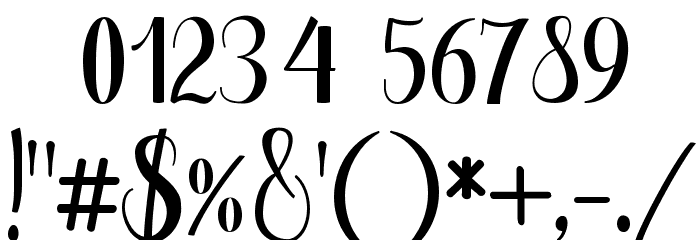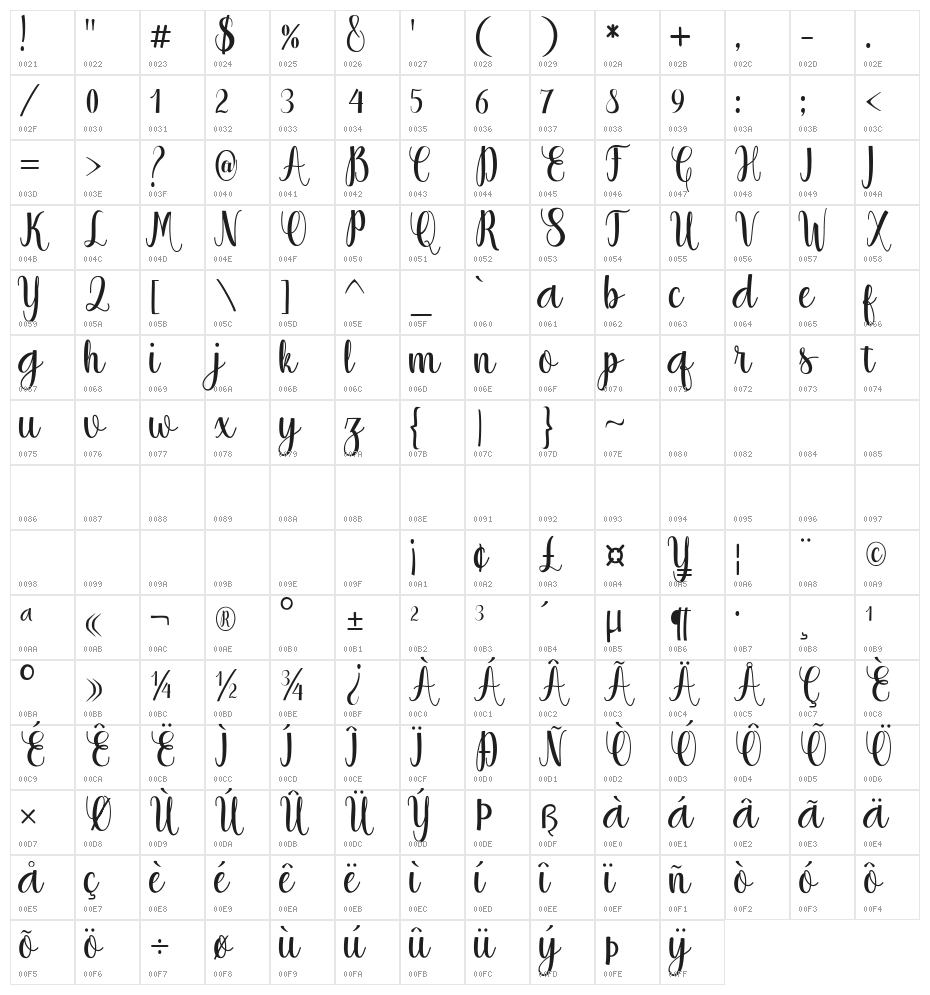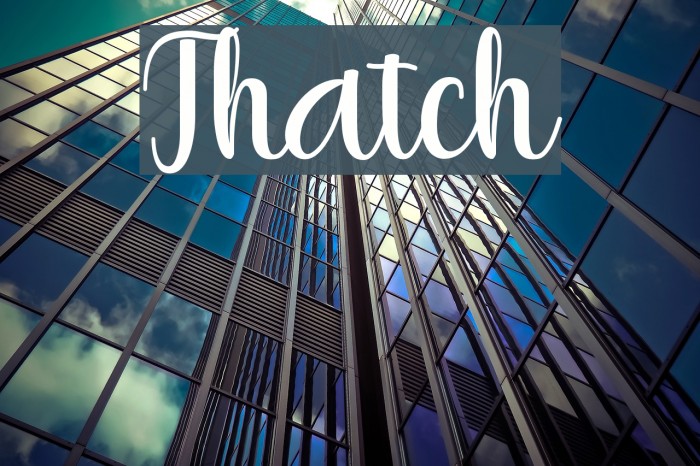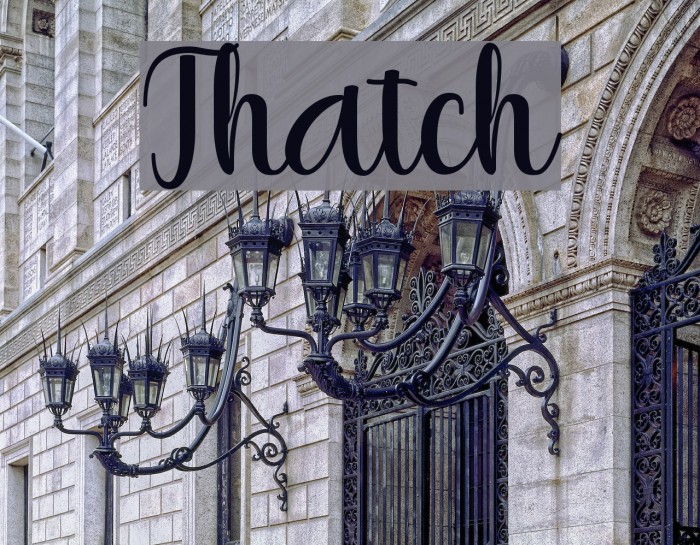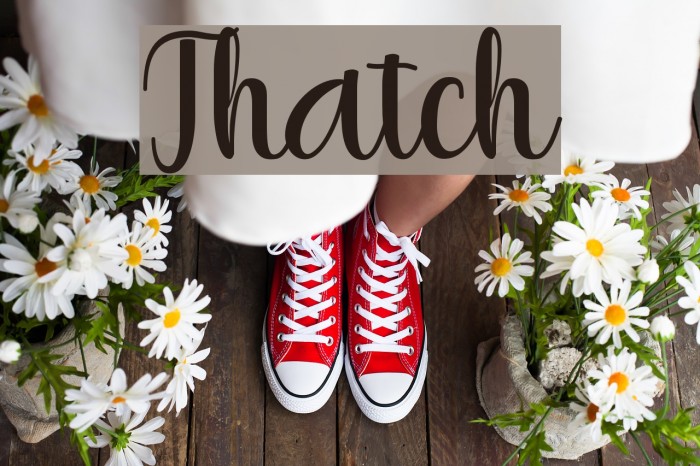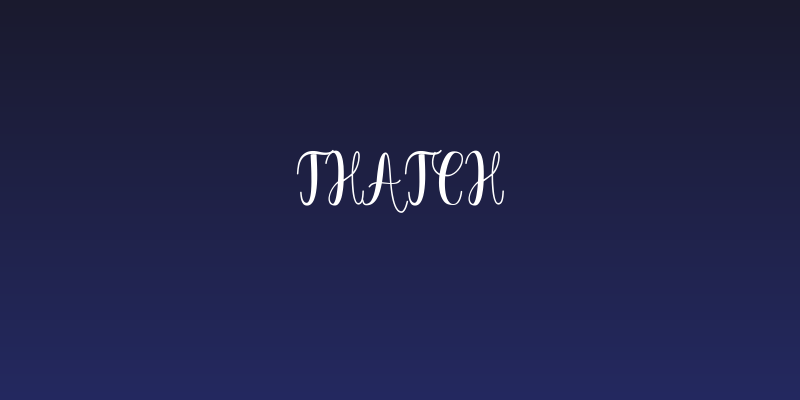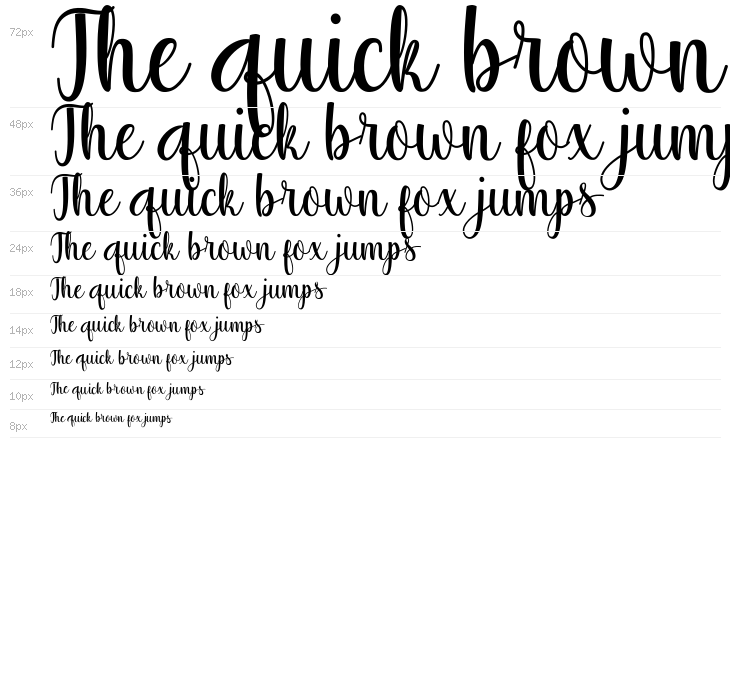
Thatch Font
Thatch Description
This font features a playful and elegant script style with a flowing, cursive design. The uppercase letters are characterized by their tall, looping ascenders and descenders, giving them a whimsical and decorative appearance. The lowercase letters maintain a consistent flow, with smooth connections between characters that enhance readability while retaining an artistic flair. Numbers and special characters are designed to match the overall style, with a balance of curves and straight lines that add to the font's charm. The font's unique personality makes it suitable for creative and expressive projects.
| Use Case | Logos, Invitations, Decorative Text |